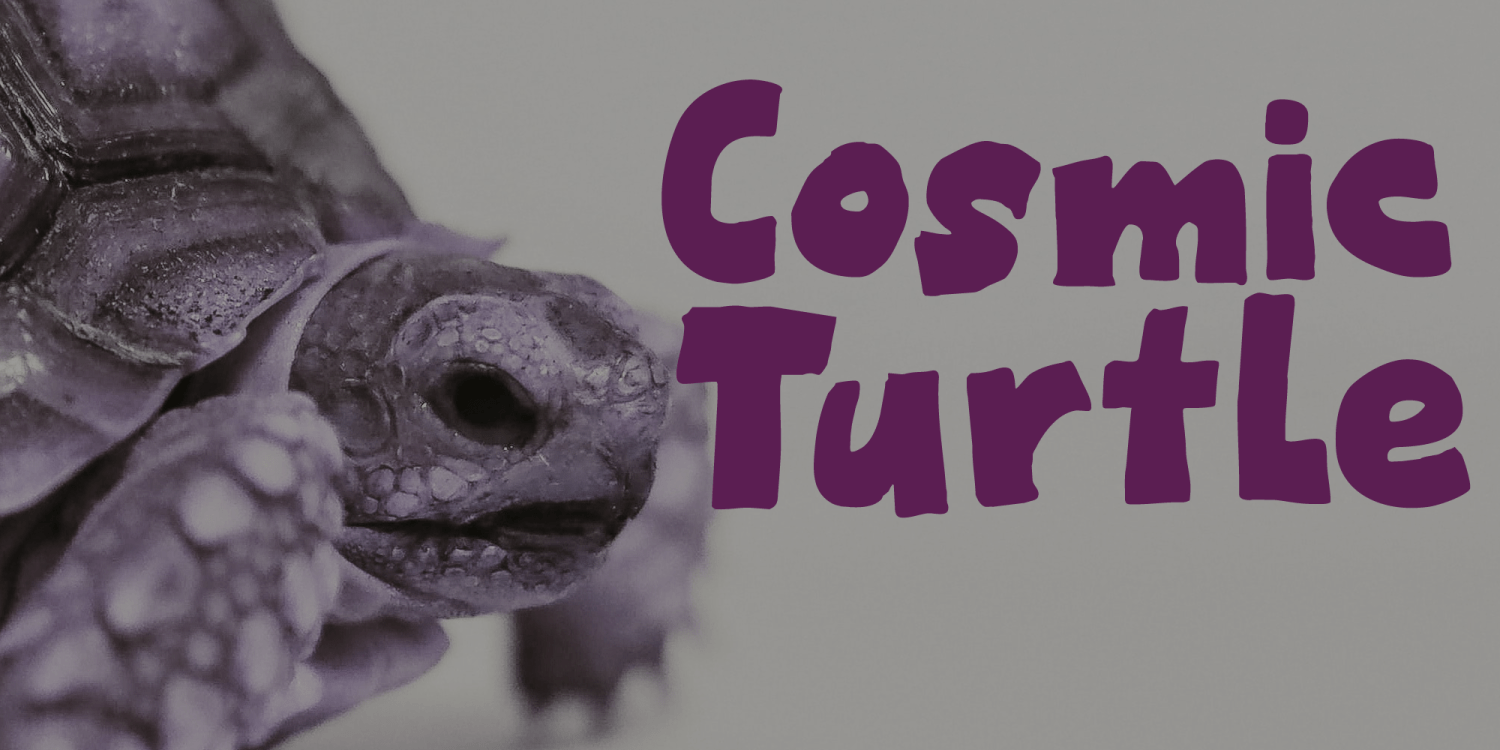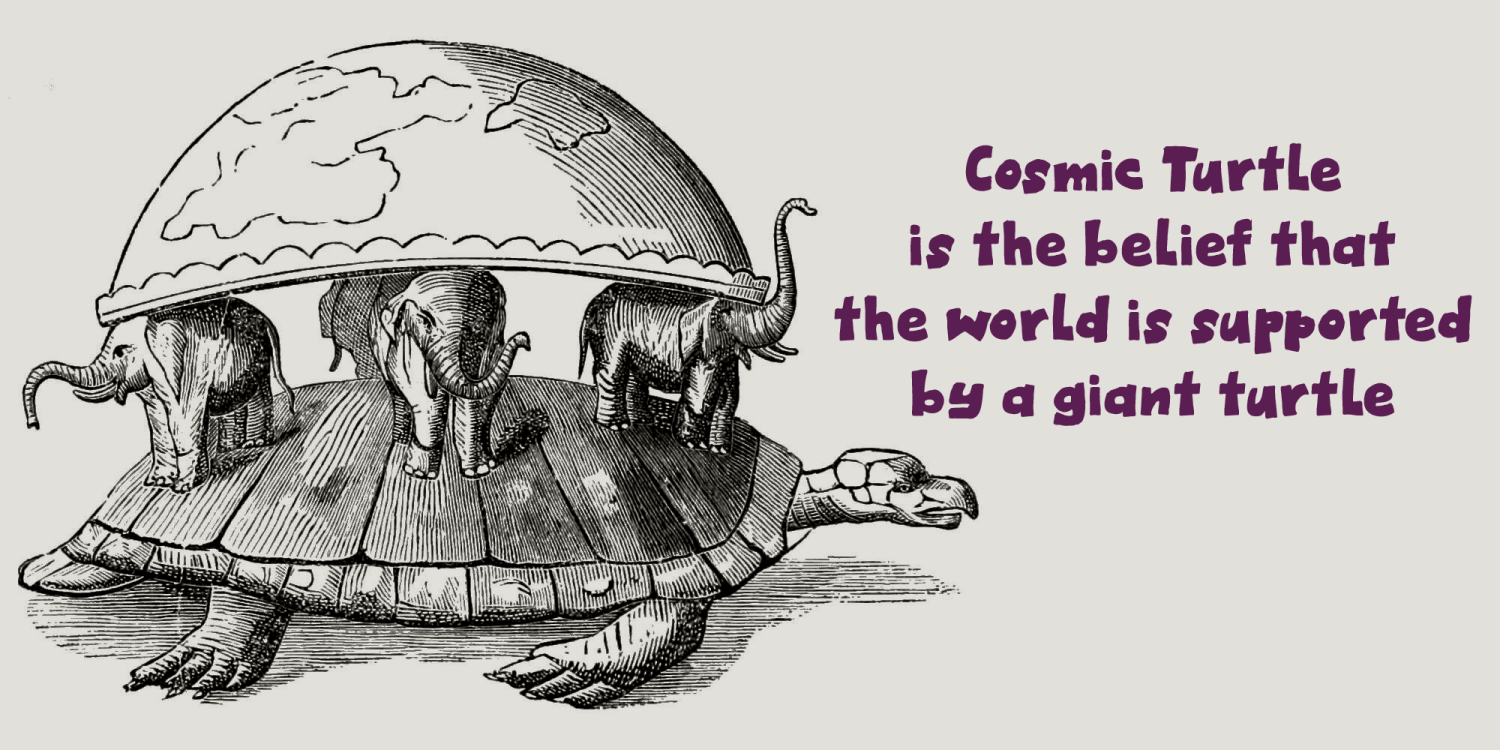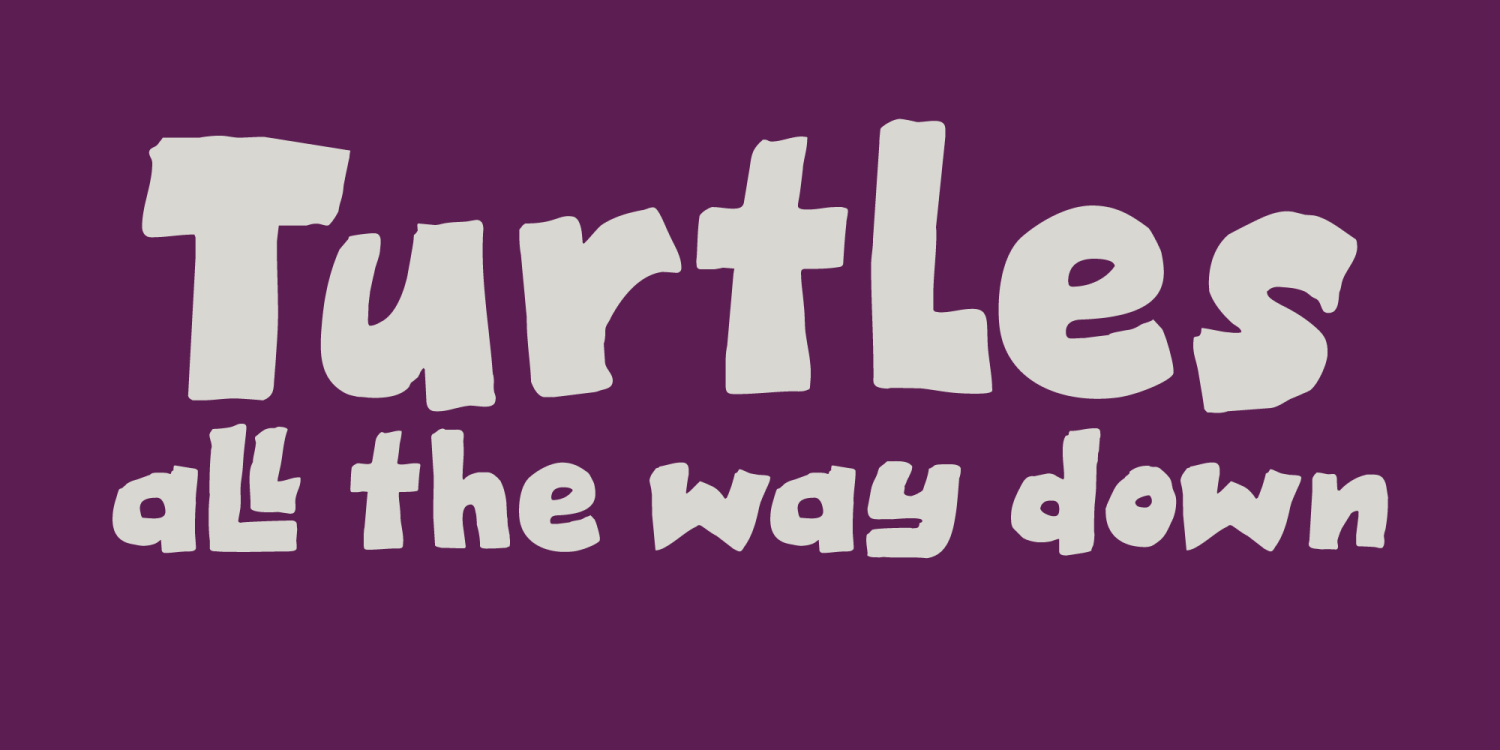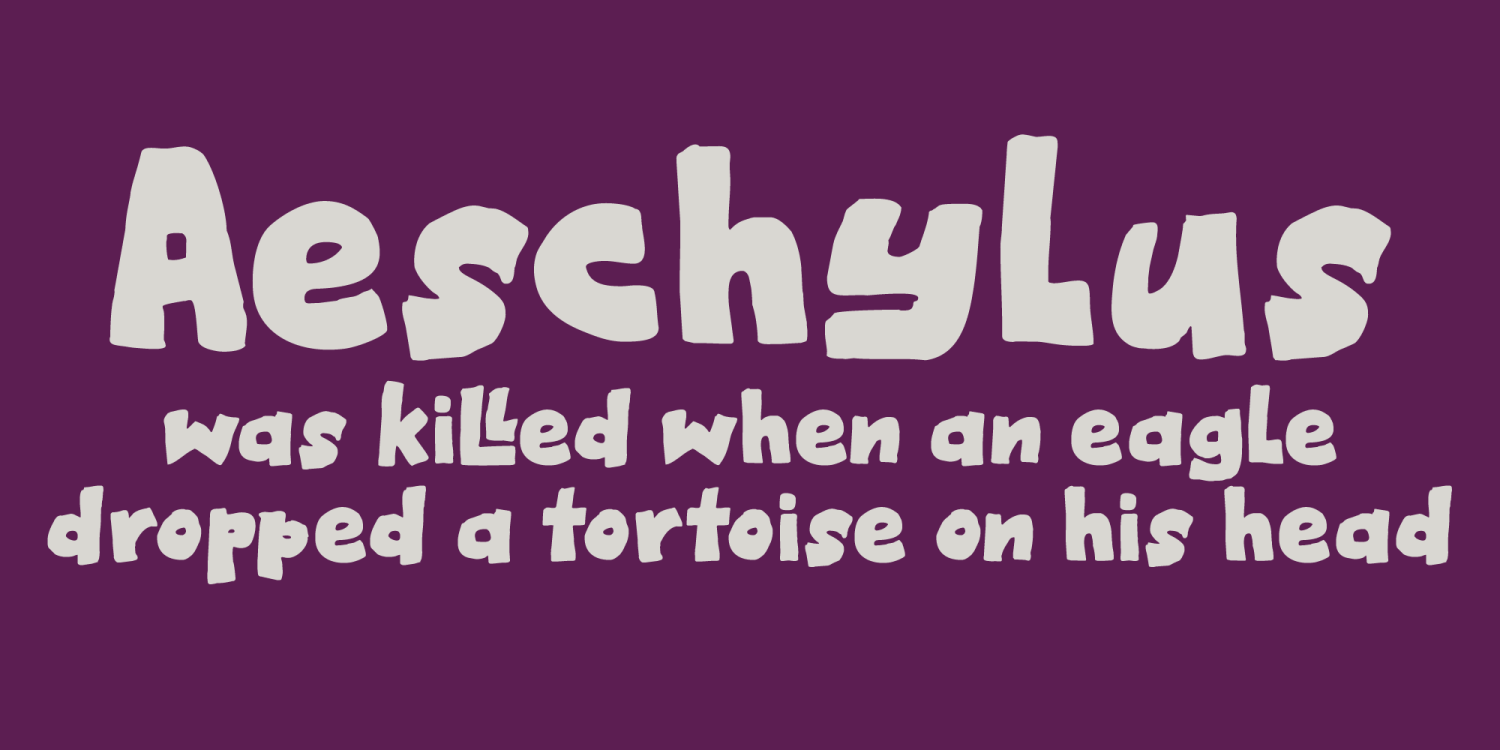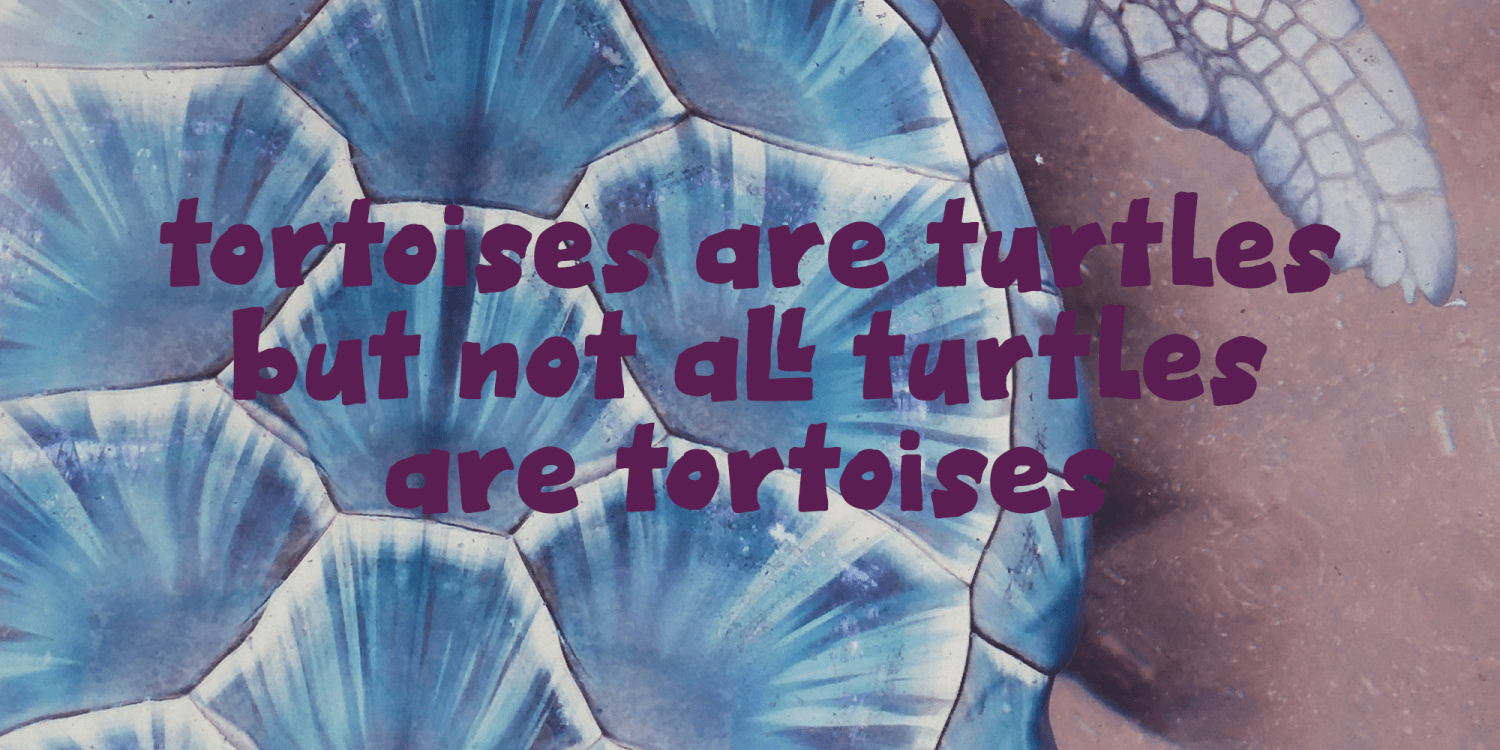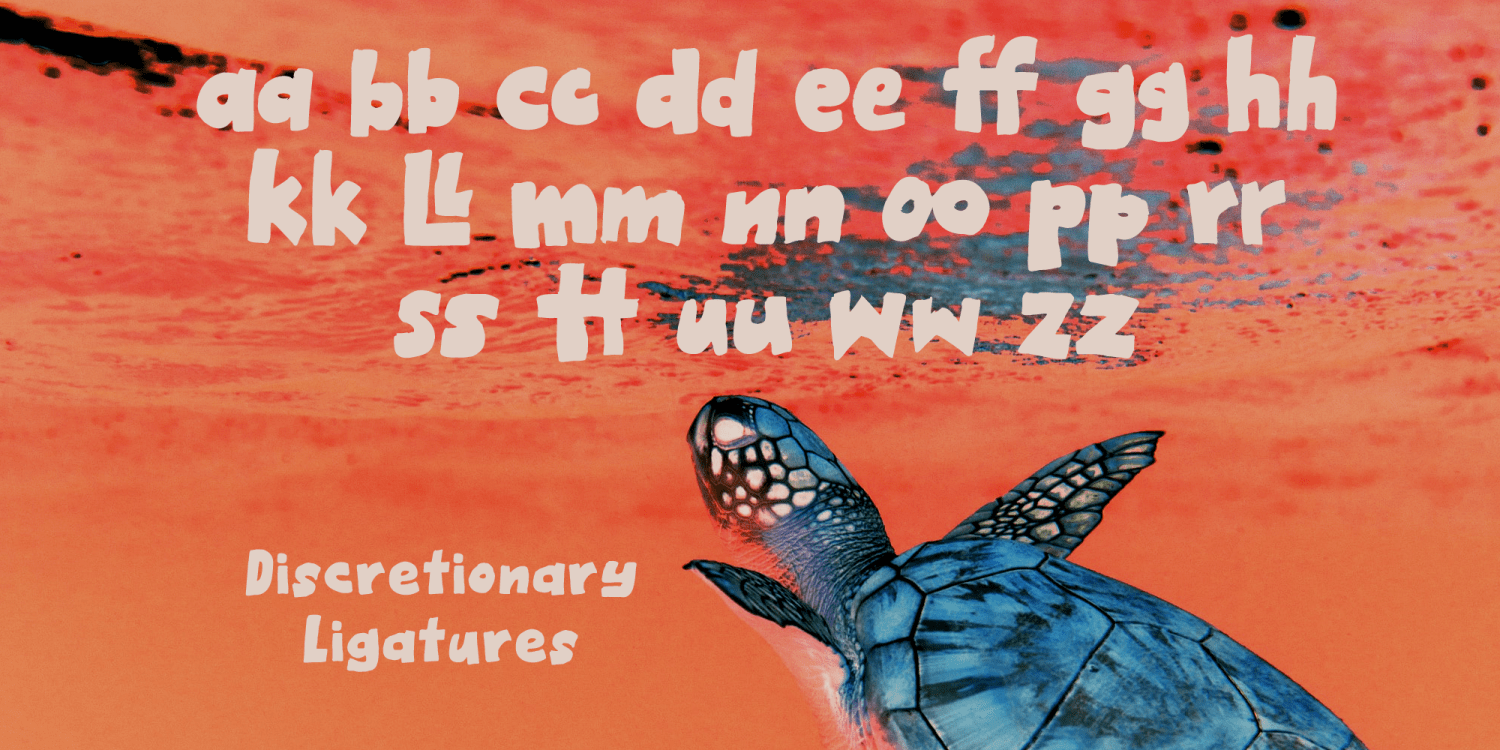
Cosmic Turtle
Buy NowCosmic Turtle is the belief that the world is supported by a giant turtle. It is mostly found in Hindu and Chinese mythology and the mythologies of the indigenous peoples of the Americas. I had to think of this, as the idea of the Cosmic Turtle is referenced to in the 1982 book ?A Wild Sheep Chase? by Haruki Murakami - my favourite author. Cosmic Turtle is a font that I made using a broken chop stick and Chinese ink. I was actually trying to create something scary for Halloween, but this is what came out and I quite like it. Cosmic Turtle is a fat display font with rough edges, wobbly glyphs and a set of double letter ligatures for you to play with.